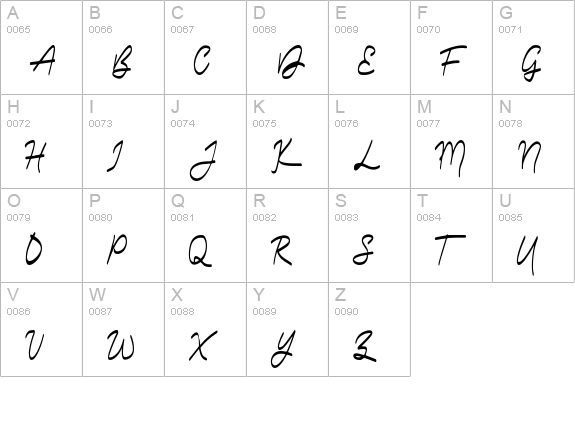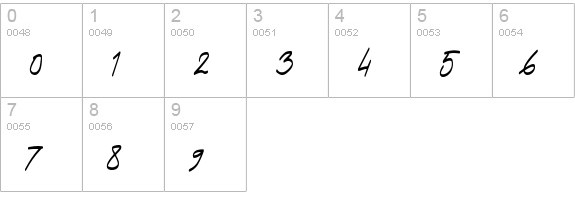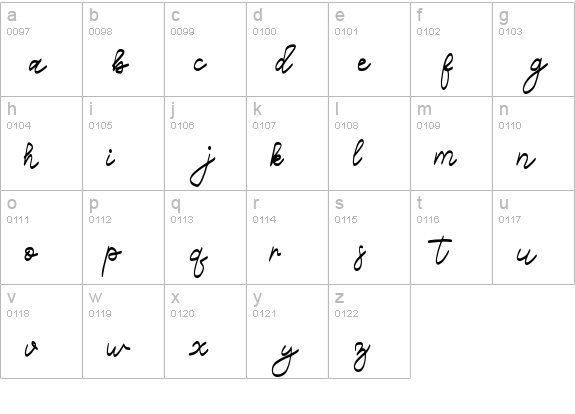
Belliza Font Details
Belliza font is a modern and elegant typeface that exudes sophistication and style. With its clean lines and graceful curves, Belliza is perfect for a wide range of design projects, from branding to editorial design. The font's versatility makes it ideal for both display and body text, ensuring that your message is conveyed with clarity and impact.